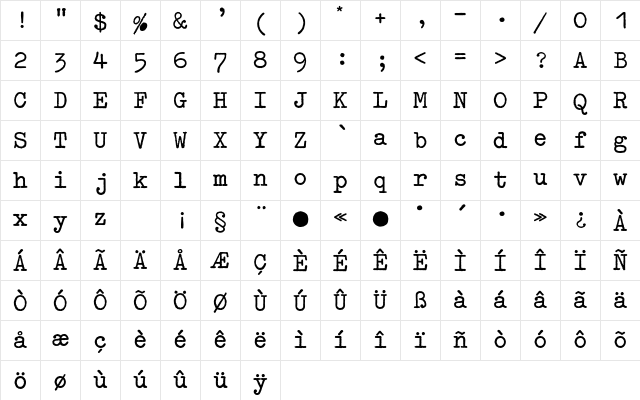
OldTypewriterEF ExBold
Style: ExBold
OldTypewriterEF Family
Complete OldTypewriterEF ExBold glyph index. Displaying only characters natively supported by OldTypewriterEF ExBold font.
Design Context for OldTypewriterEF
OldTypewriterEF uses fixed-width spacing throughout, giving it the structured, systematic character associated with coding environments and technical documentation. Its bold stroke weight gives it real presence on the page.